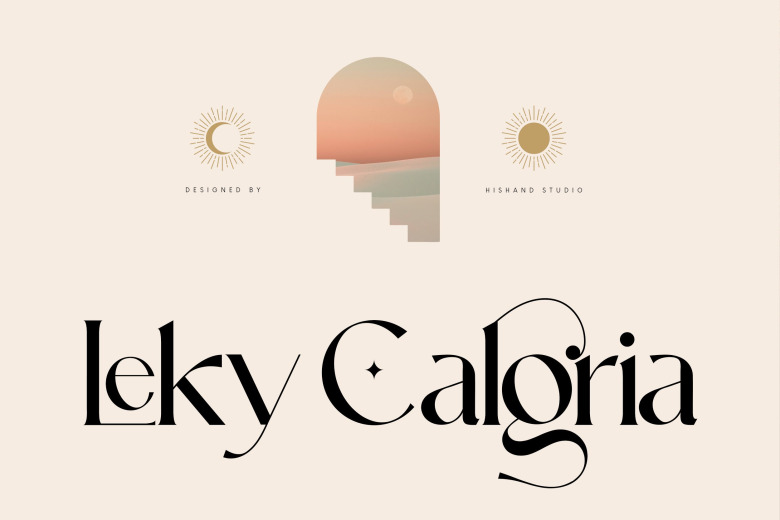
Leky Calgria Font
Leky Calgria is an elegant, delicate and thin lettered serif font. Trendy and stylish, this font will elevate each of your creations. Leky Calgria is PUA encoded which means you can access all of the glyphs and swashes with ease!